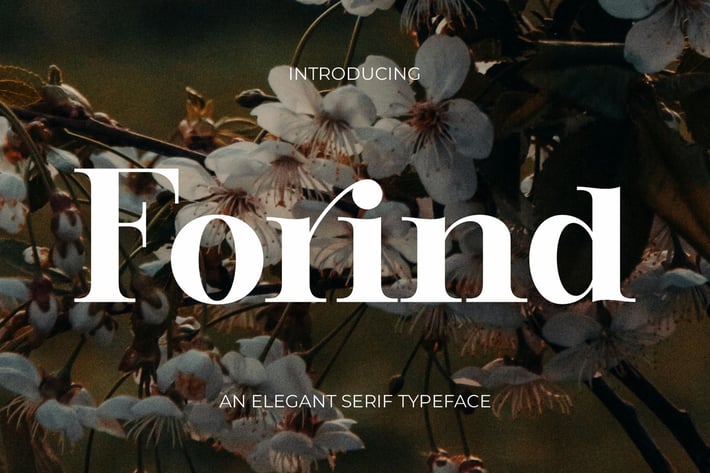
Forind An Elegant Serif Font
Forind is a elegant and classy serif typeface – This font is both modern and nostalgic and works great for logos, magazine, social media. Already matched up and ready to be used together for your next design!
For those of you who are needing a touch of elegant, stylish, classy, chic and modernity for your designs, this font was created for you!
Forind was built with OpenType features and includes ligatures, numbers, punctuation, and it also supports other languages.